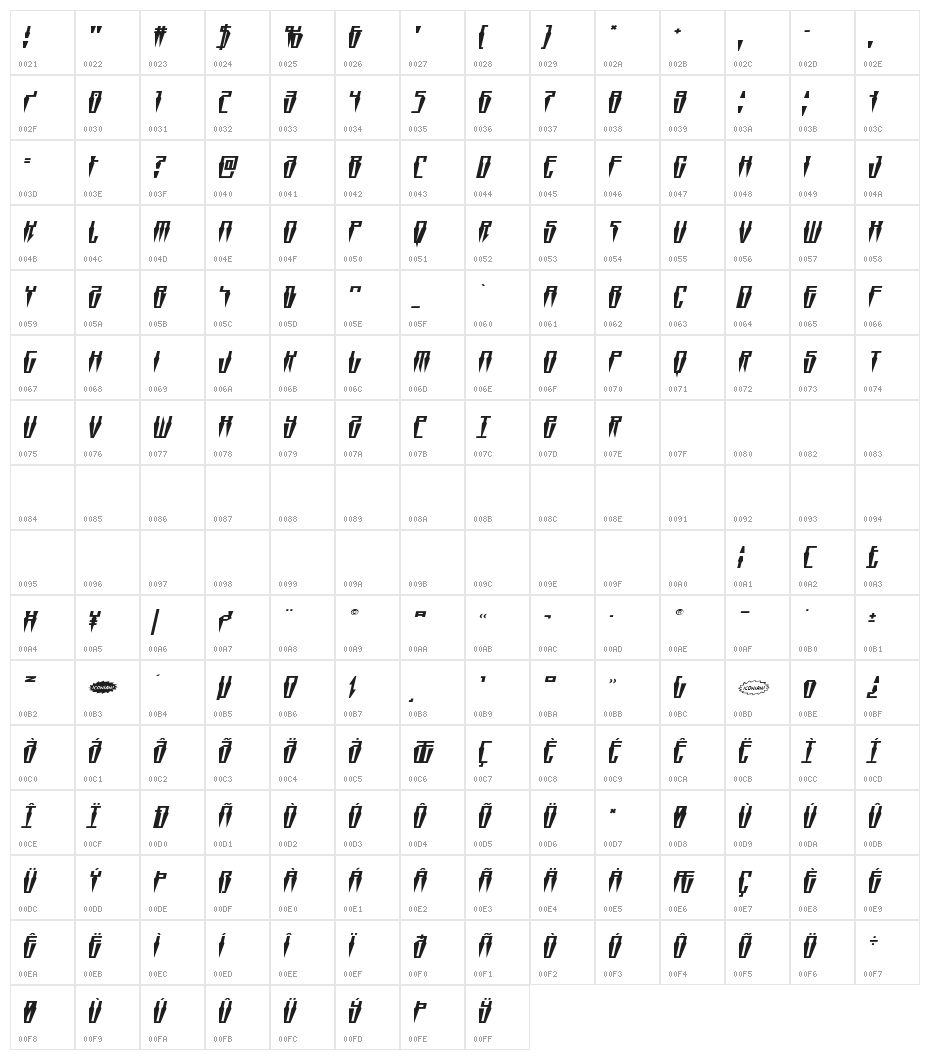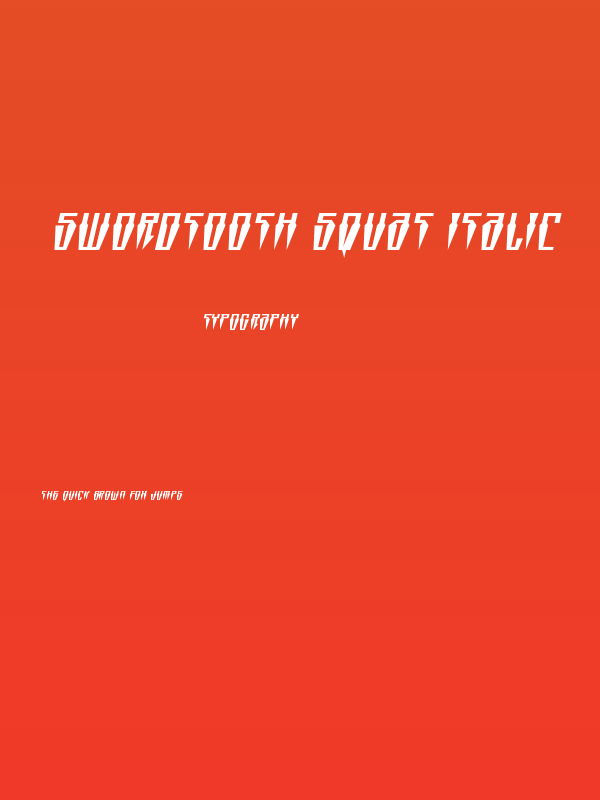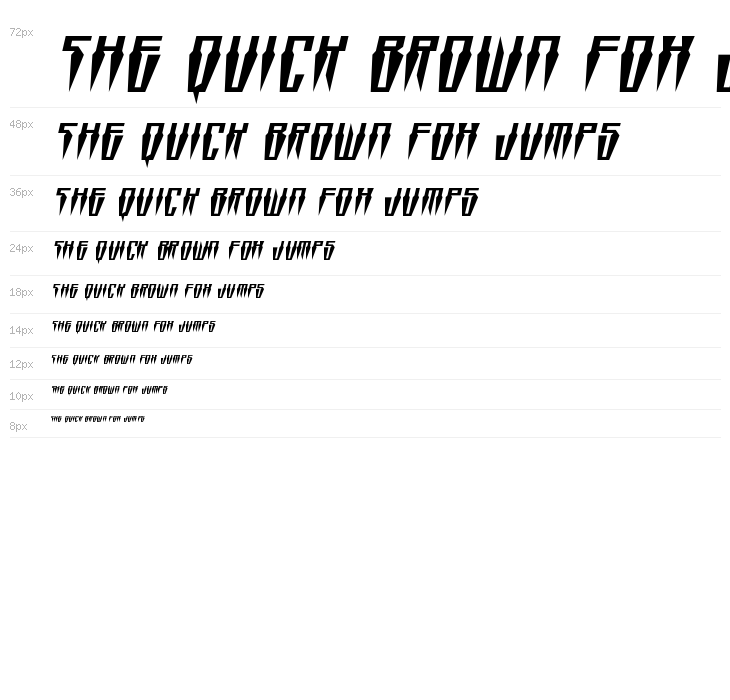
Swordtooth Squat Italic Font
Swordtooth Squat Italic Description
This font features a bold and angular design with sharp, pointed edges that give it a dynamic and aggressive appearance. The characters are italicized, adding a sense of motion and energy. Each letter is crafted with a distinct geometric style, emphasizing vertical lines and sharp angles. The numbers and special characters maintain this cohesive design, ensuring consistency across all elements. The overall aesthetic is modern and edgy, making it suitable for projects that require a strong visual impact.